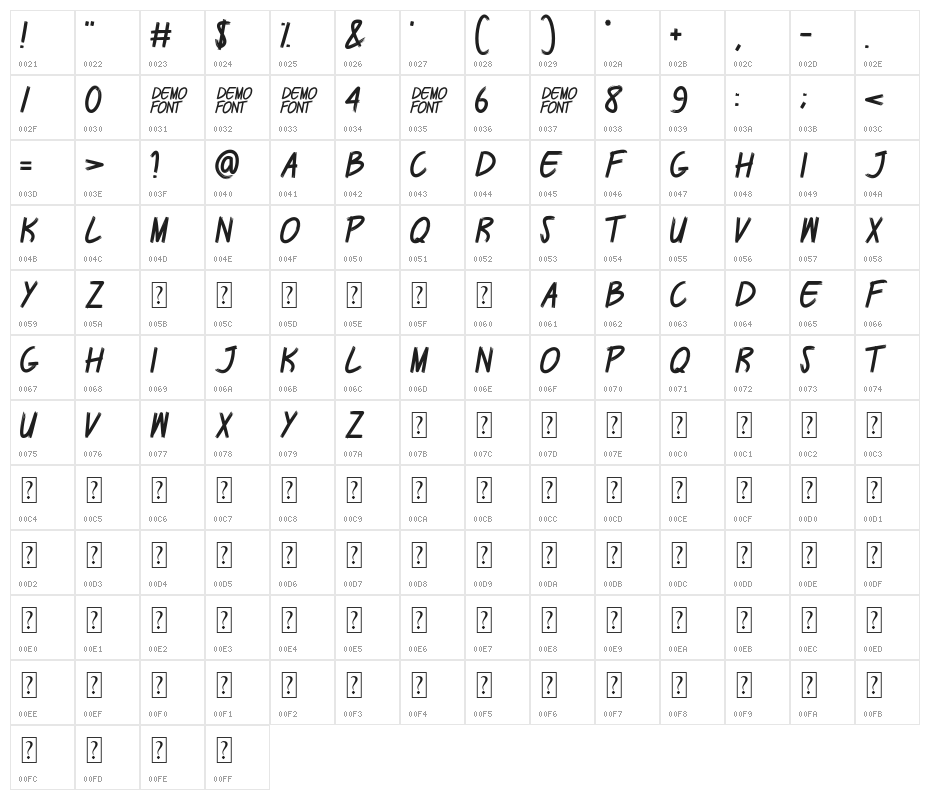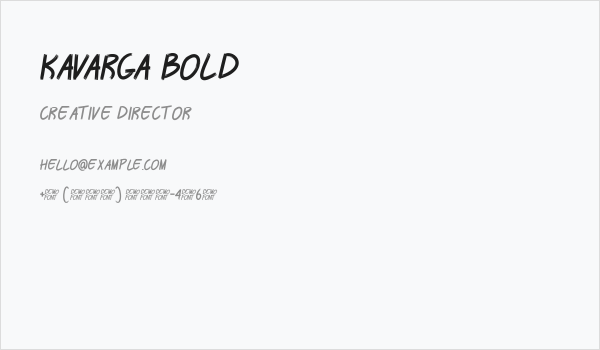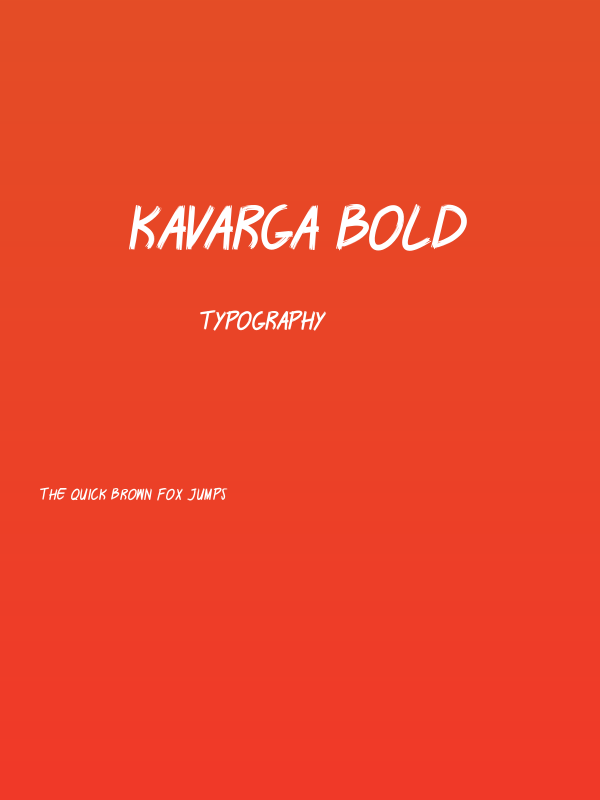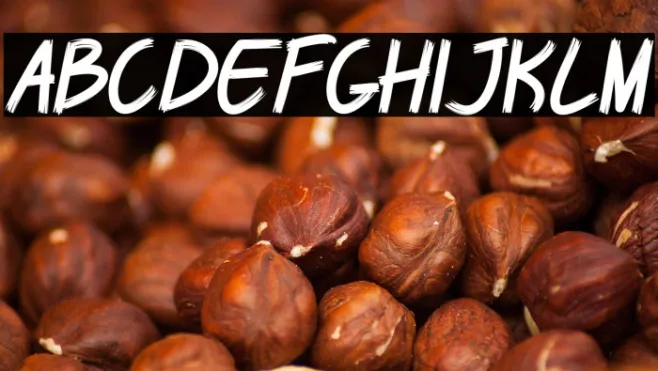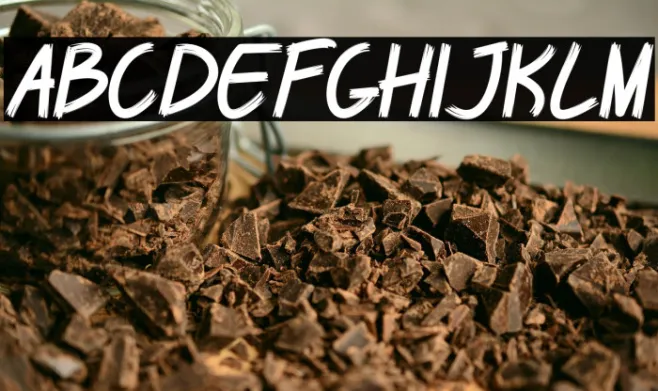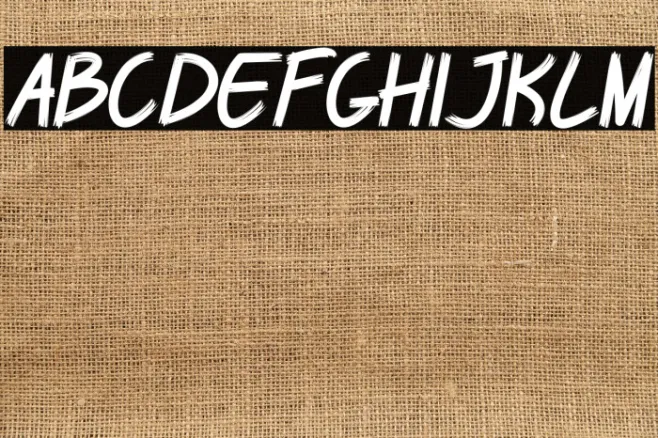
KAVARGA Bold Font
KAVARGA Bold Description
This font features a bold and dynamic style with a brush-like appearance, giving it an energetic and expressive feel. The characters are slightly slanted, adding a sense of movement and urgency. The strokes are thick and uneven, creating a hand-drawn effect that is both modern and artistic. The uppercase and lowercase letters maintain a consistent style, while the numbers and special characters complement the overall design. This font is perfect for projects that require a bold statement and a touch of creativity.
| Proposed Projects | Ideal for posters, branding, headlines, and any design that needs a bold and artistic touch. |